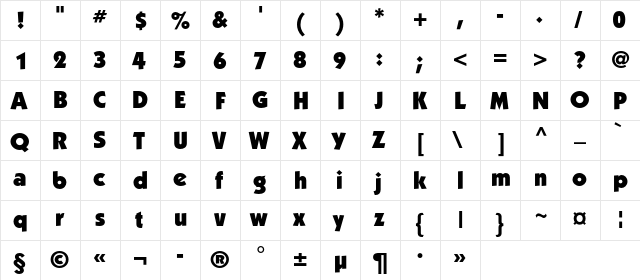
Kabel UltraC Regular
Design Context for Kabel UltraC Typeface
Kabel UltraC offers clean, dependable letterforms without strong stylistic allegiance, making it a practical choice for designers who need flexibility.